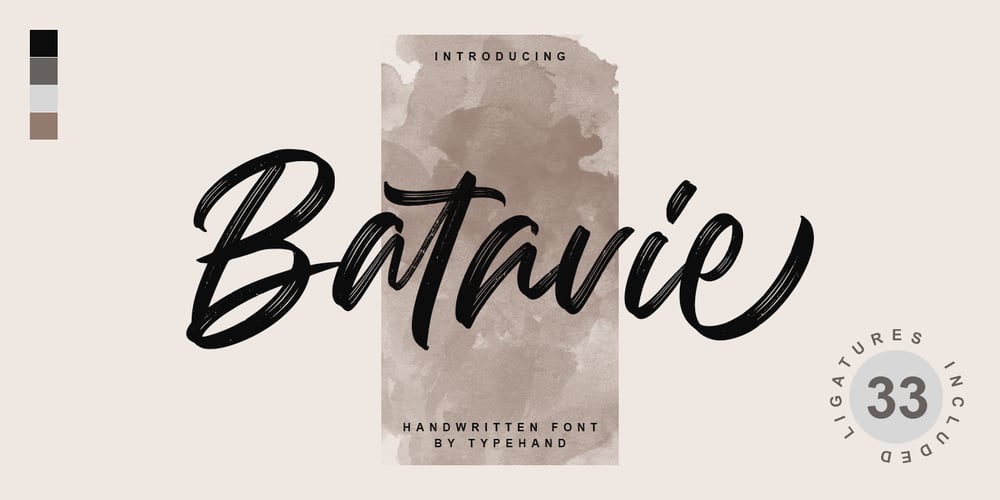
Batavie Font Family was designed by Ahmad Gozali, Yanuar Adi and published by Typehand Studio. Batavie contains 1 styles and family package options. Batavie is a scratch handwritten font. Perfect for greeting cards, wedding stationery, photographer watermarks logos, modern websites, apparel design and more.Batavie features handwritten ligatures, beginning and end swashes for lowercase letters and heart connectionsThanks so much for checking out my shop, and please get in touch if you have any questions!Batavie Font Features: Full Set of standard alphabet and punctuation Handwritten ligatures PUA Encoded – no special software needed to access extra characters Multilingual Characters